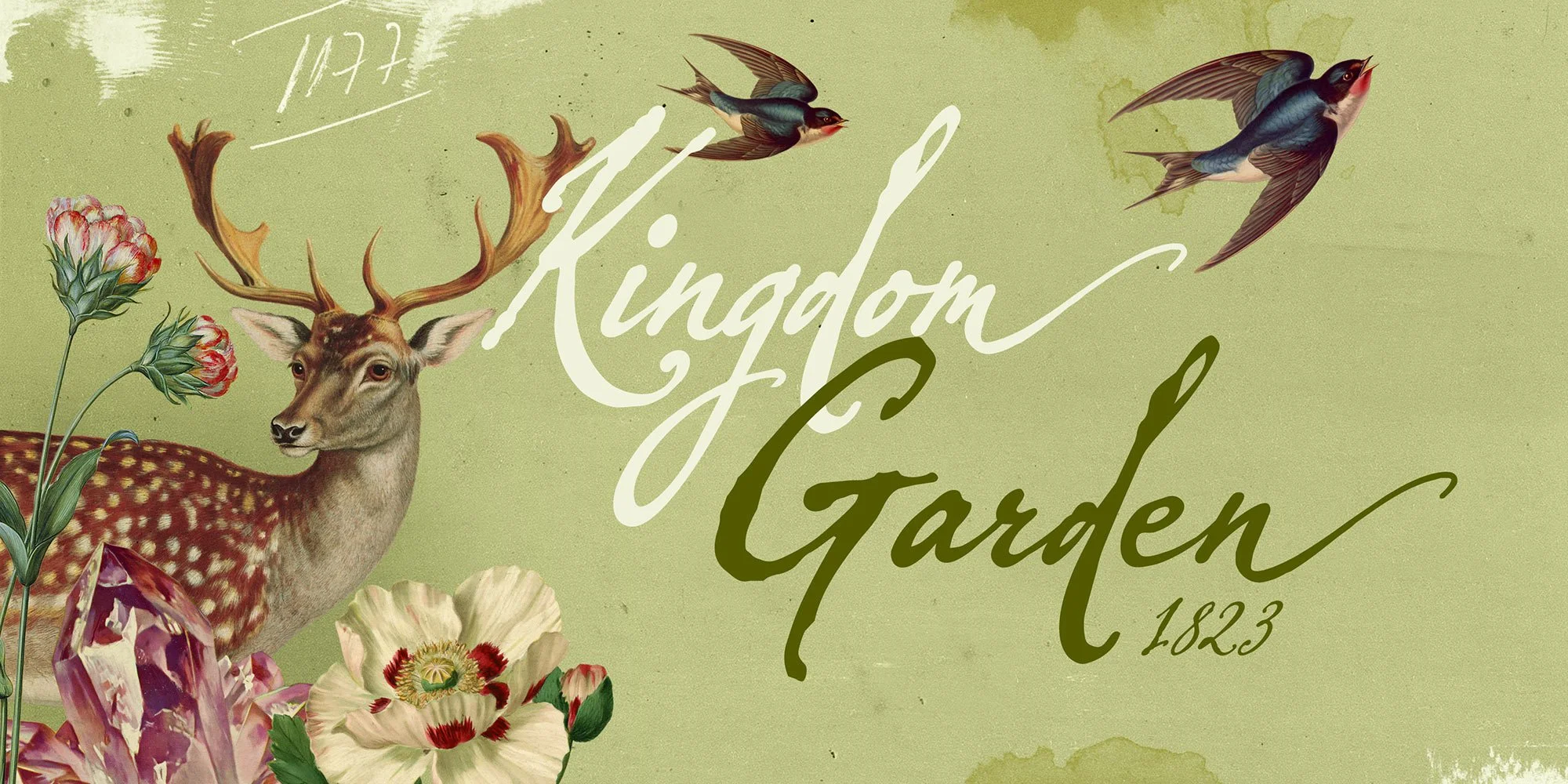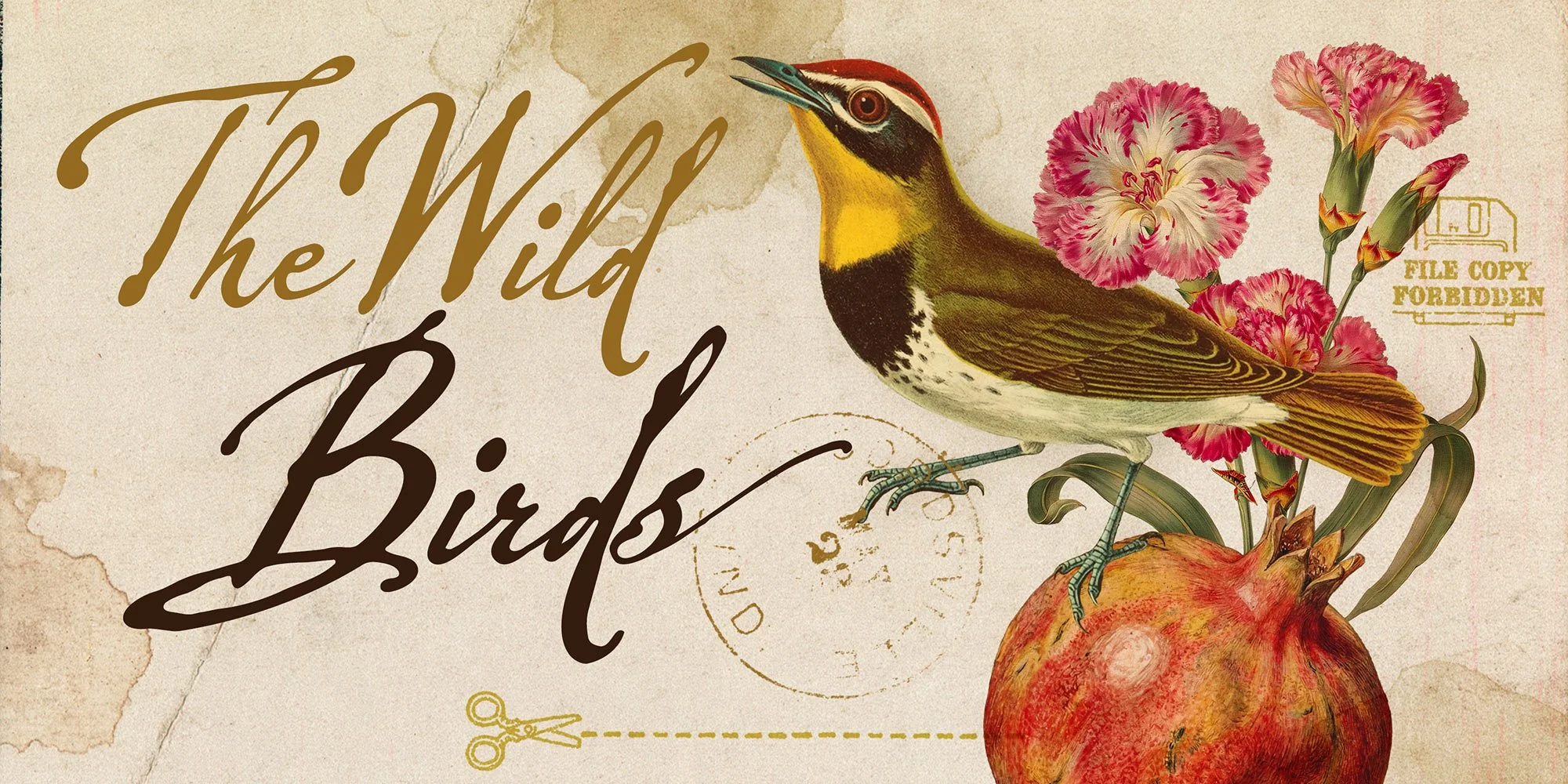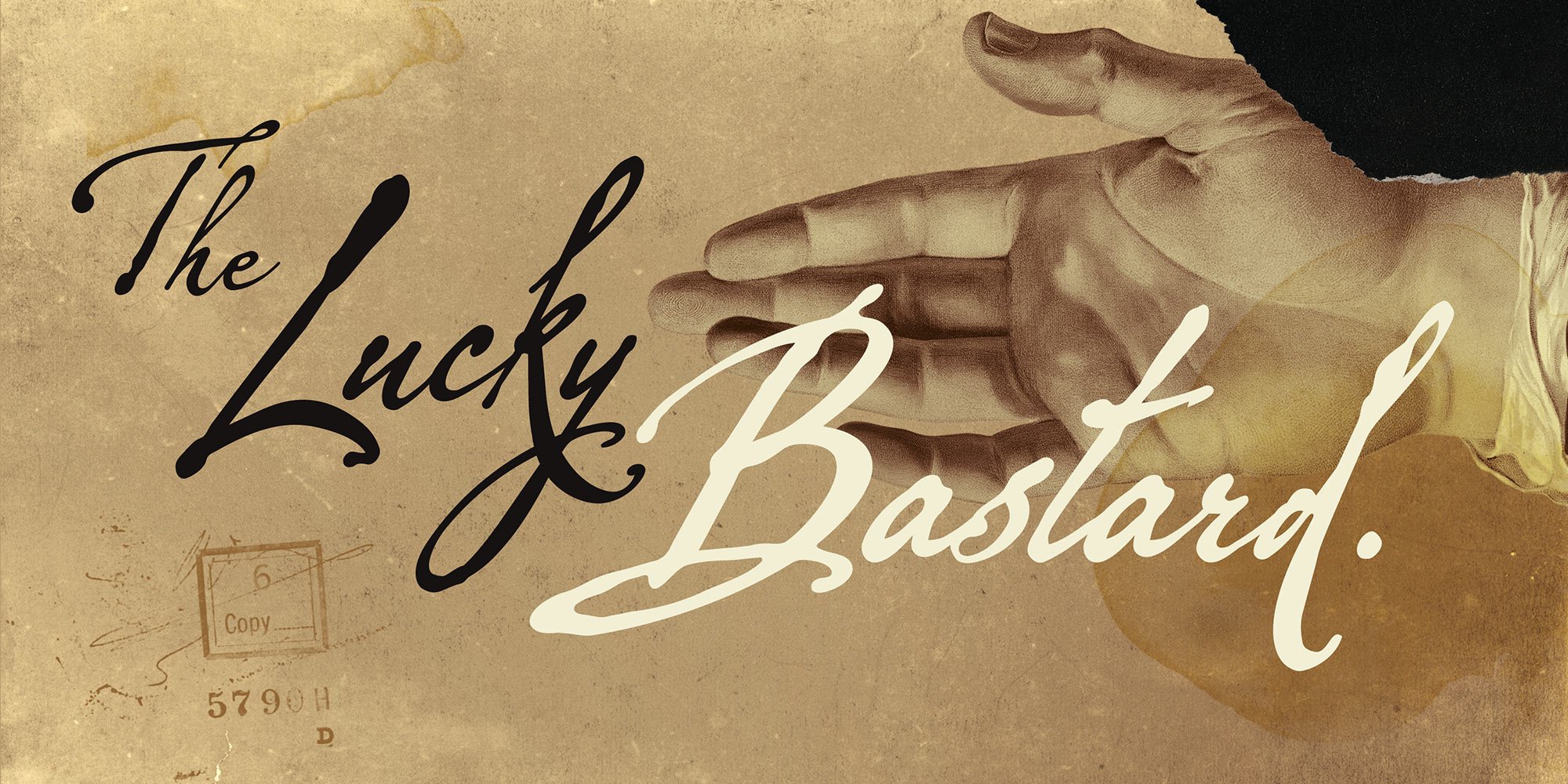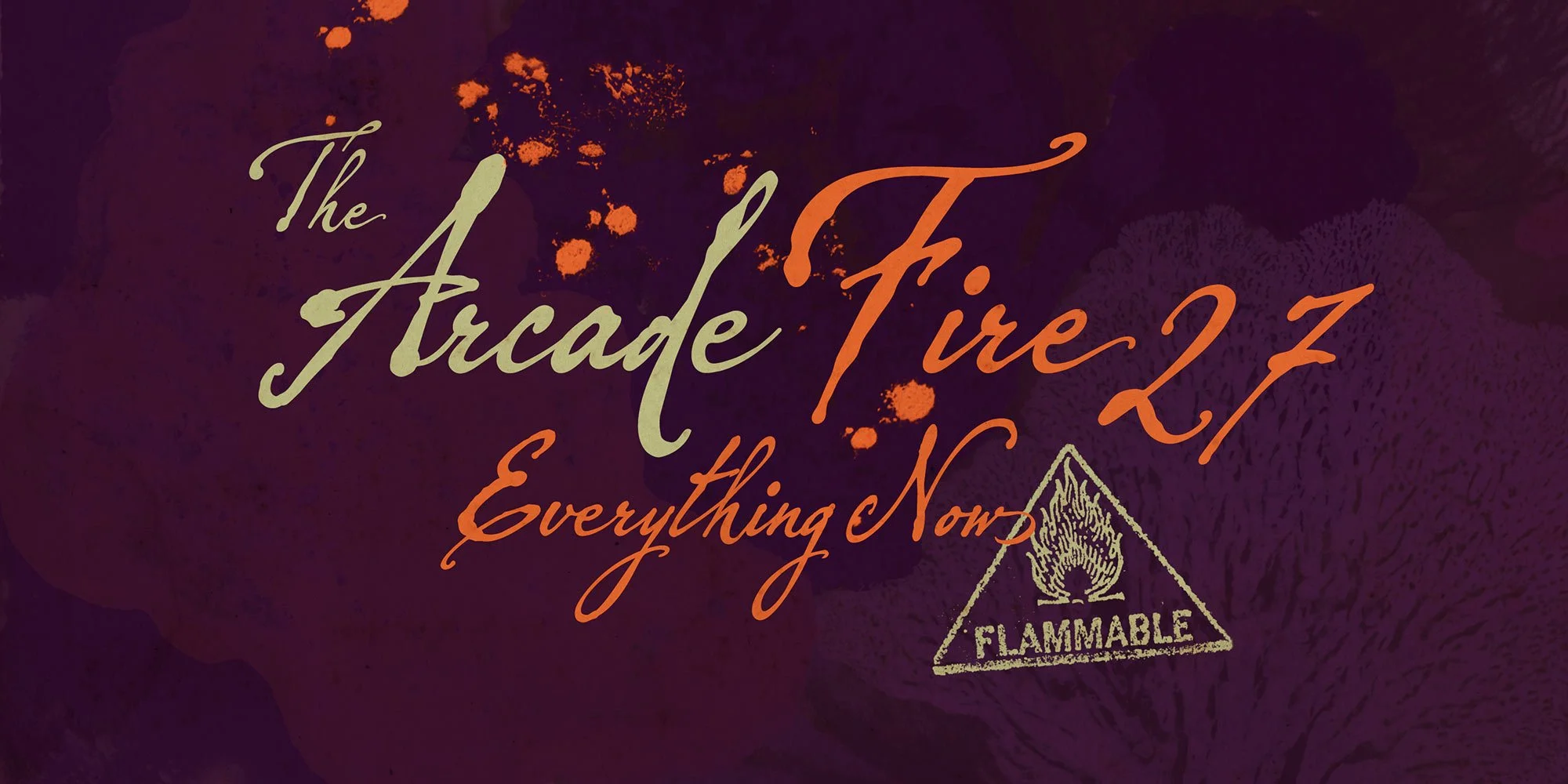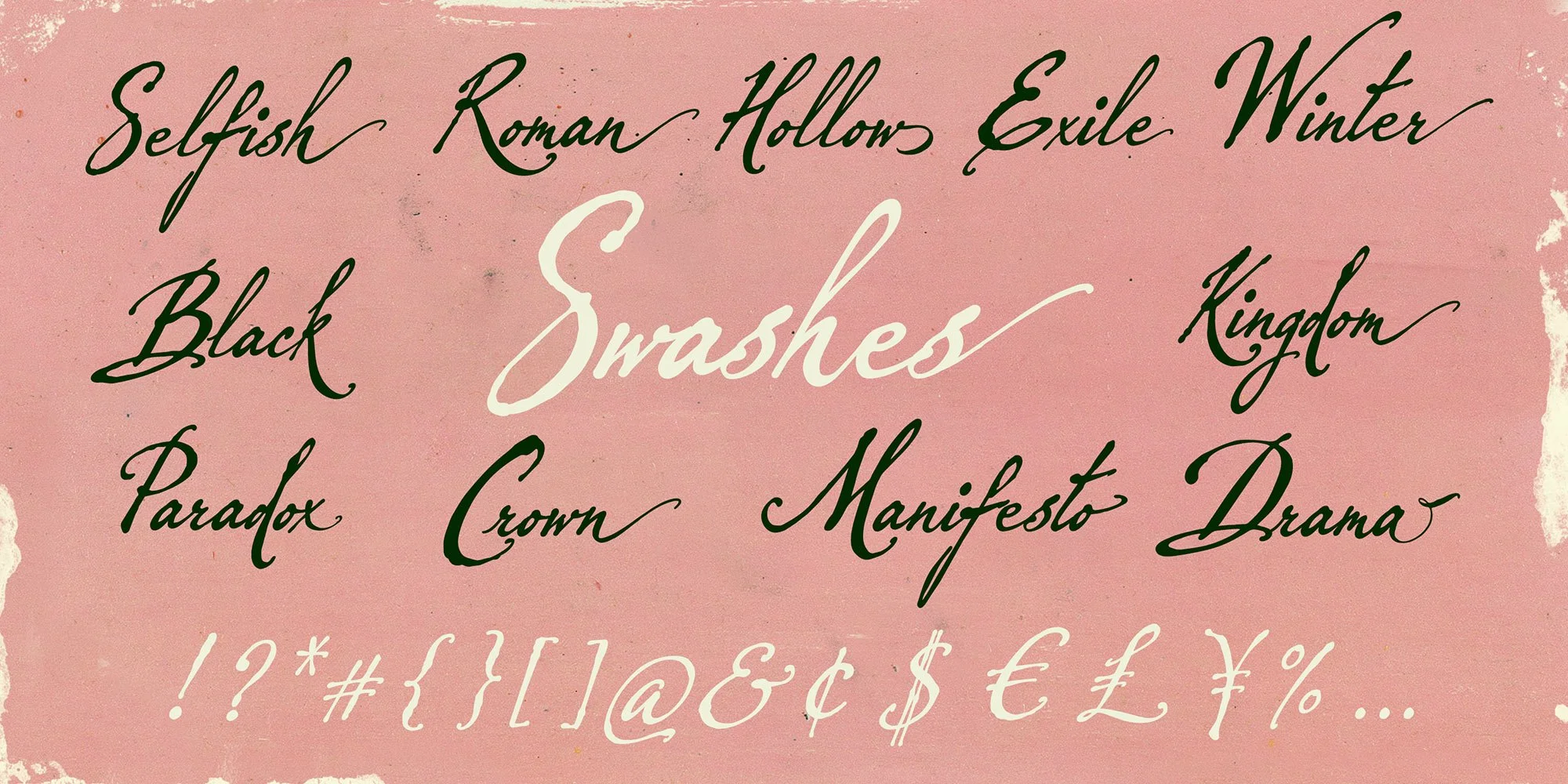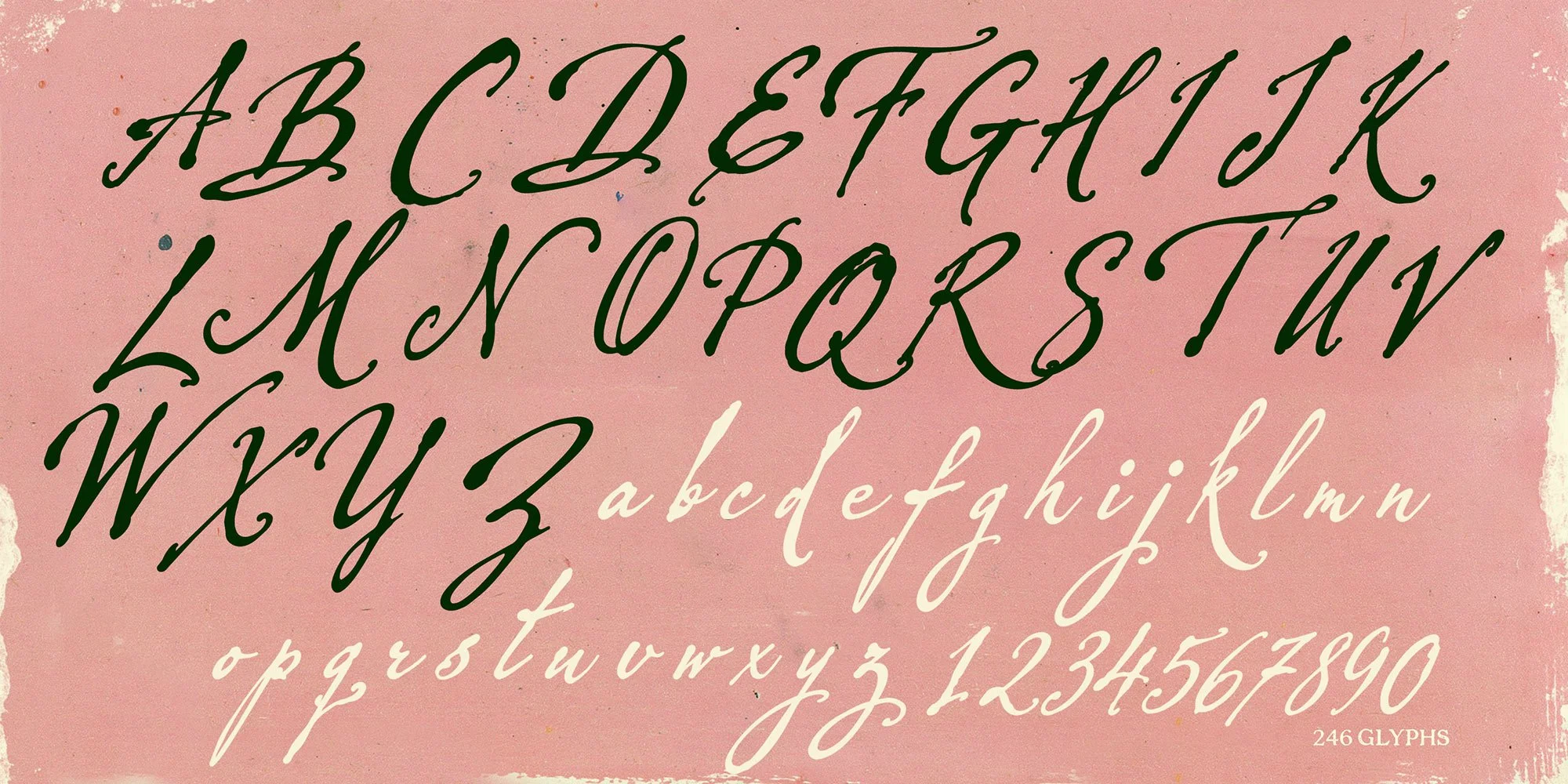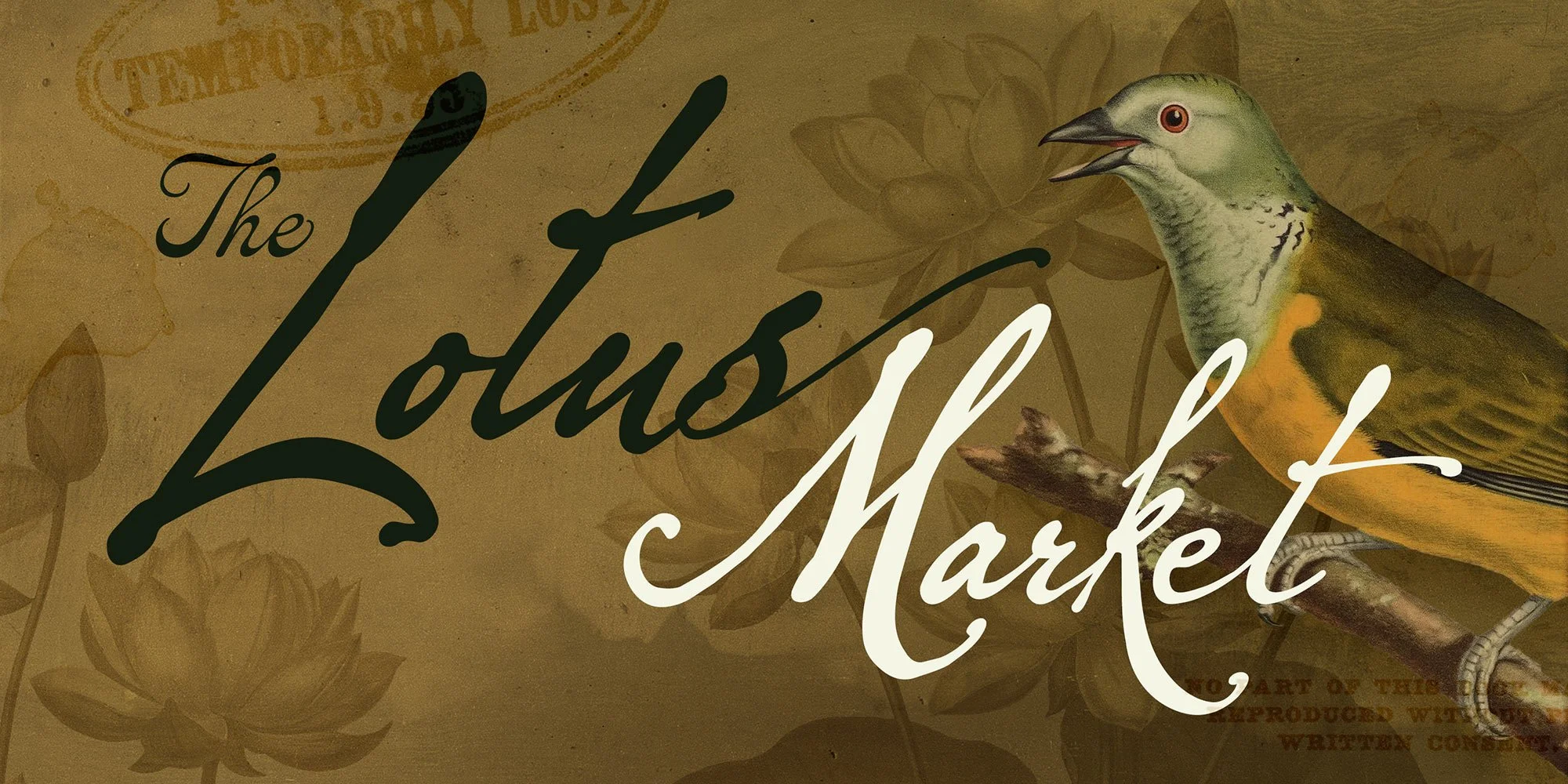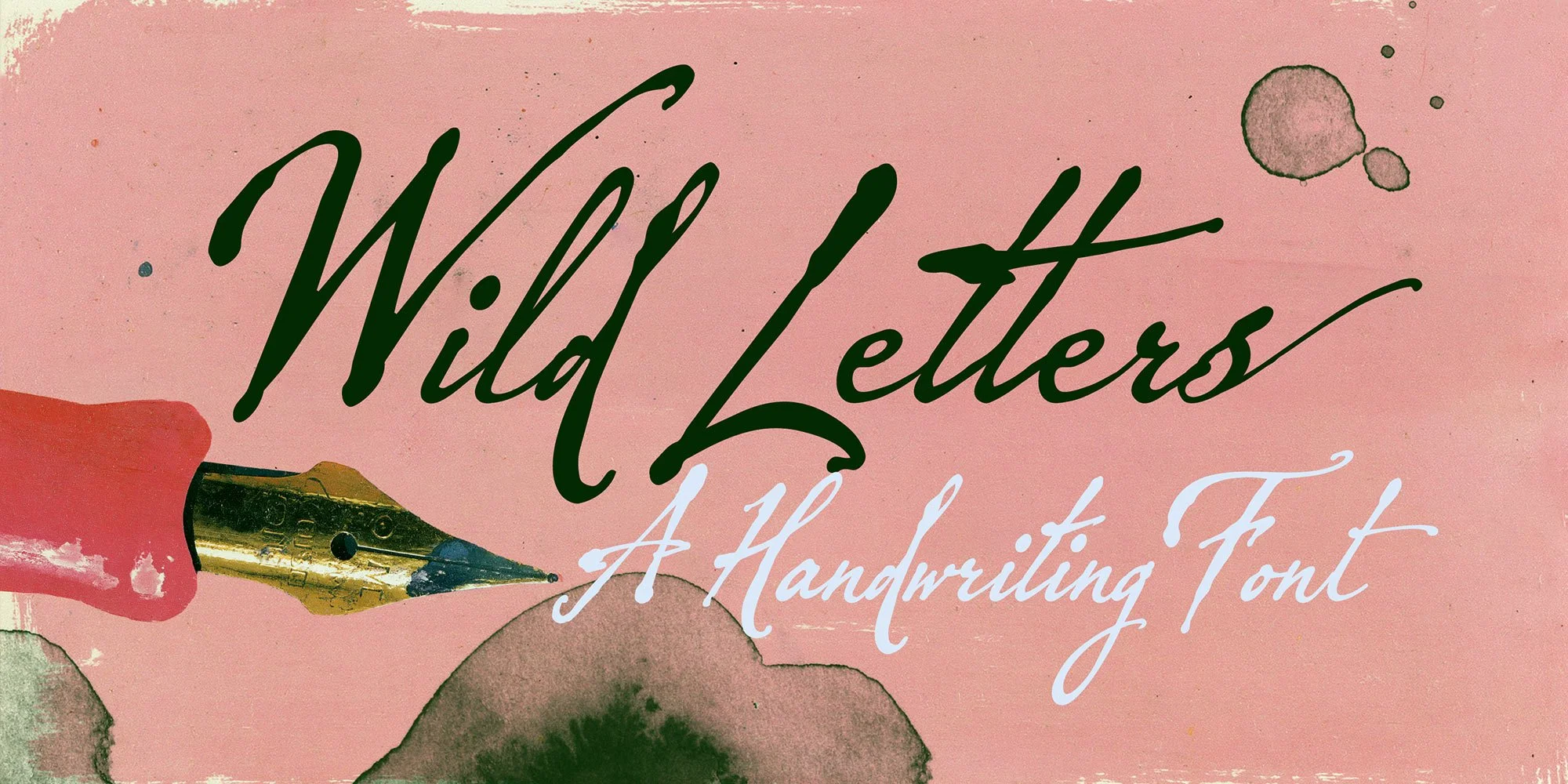
WILD LETTERS
Wild Letters is an expressive handwritten script inspired by old personal letters, where every stroke carries the spontaneity and charm of a wet nib pen moving freely across the paper. Instead of chasing perfection, it embraces the natural rhythm of handwriting, with flowing curves, subtle variations, and expressive forms that feel genuine and full of life. The result is a script that looks personal, effortless, and unmistakably written by hand.
The font includes contextual alternates and ending swashes, allowing the letters to connect naturally and creating words that flow with the richness and unpredictability of real handwriting. With 246 glyphs, the font offers plenty of variation while remaining intuitive and enjoyable to use.
Whether you're designing posters, movie titles, vintage-inspired projects, packaging, or branding, Wild Letters brings warmth, movement, and personality to every composition, capturing the timeless beauty that only expressive calligraphy can achieve.